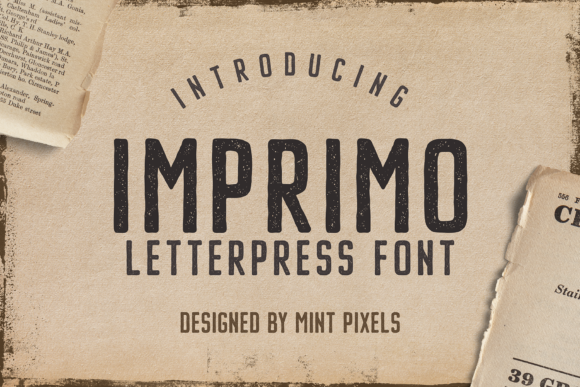
Embrace the beauty of Imprimo Letterpress, the captivating sans-serif font family that exudes a vintage charm like no other. Created by the talented designers at Mint Pixels, Imprimo is not just a font; it's a gateway to a world of nostalgia and timeless elegance.
With its striking uppercase letters, Imprimo commands attention and adds a touch of sophistication to any design project. Its letterpress-inspired style evokes a sense of authenticity and heritage, making it the perfect choice for creating logos, posters, invitations, and other printed materials that demand a touch of class.
Beyond its visual appeal, Imprimo is a font that speaks to the heart. Its bold, confident strokes convey a sense of strength and resilience, while its carefully crafted curves add a touch of warmth and approachability. Whether you're crafting a design for a business, a personal project, or simply expressing your creativity, Imprimo has the power to elevate your words and make them resonate with your audience.
So, dive into the world of Imprimo Letterpress and let your imagination soar. Experience the joy of creating designs that are as unique and captivating as your own story. With Imprimo by your side, your words will come alive, leaving an unforgettable mark on the hearts of your readers.